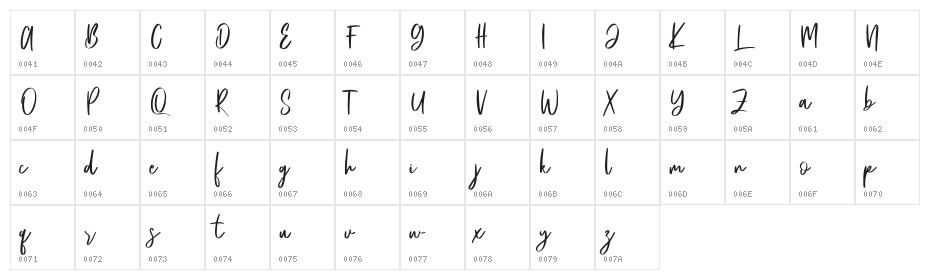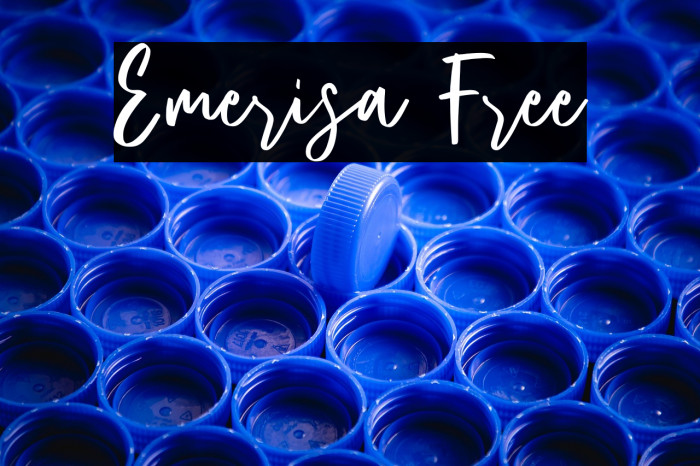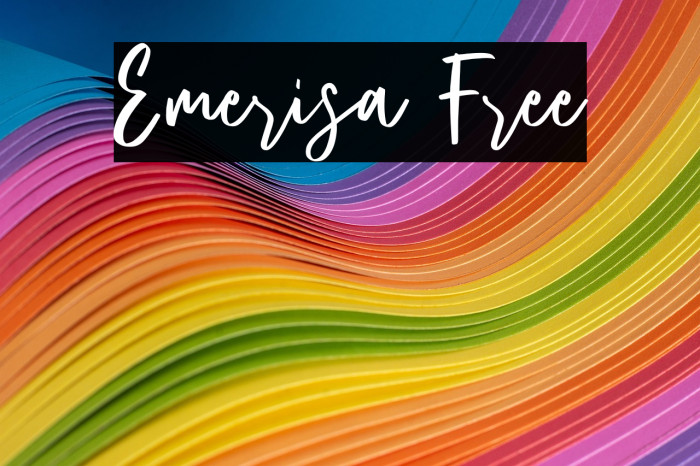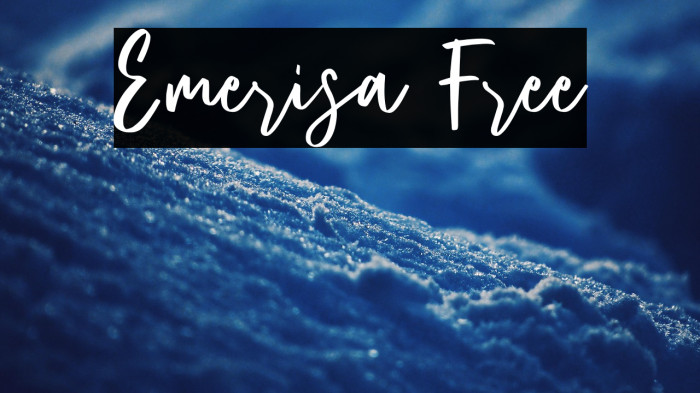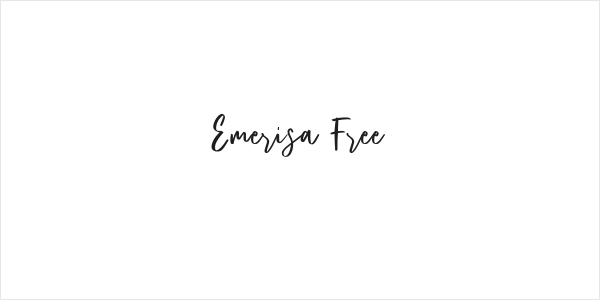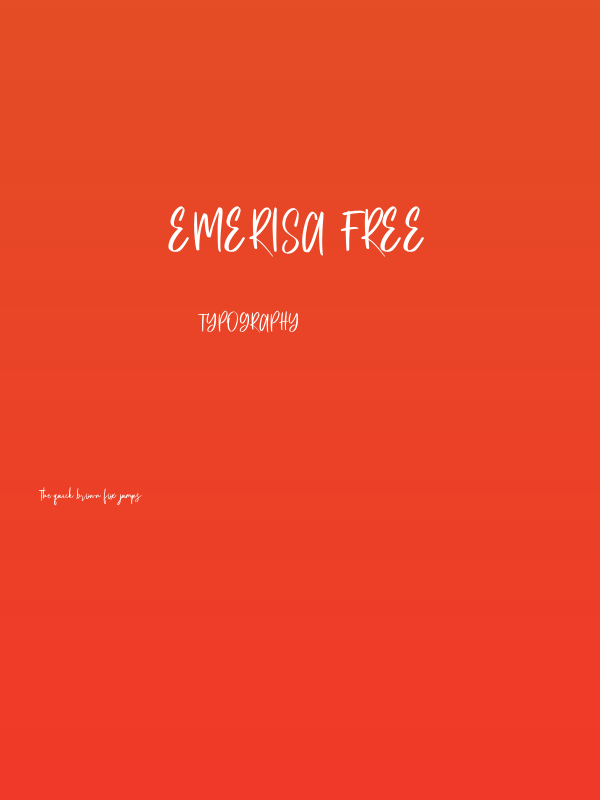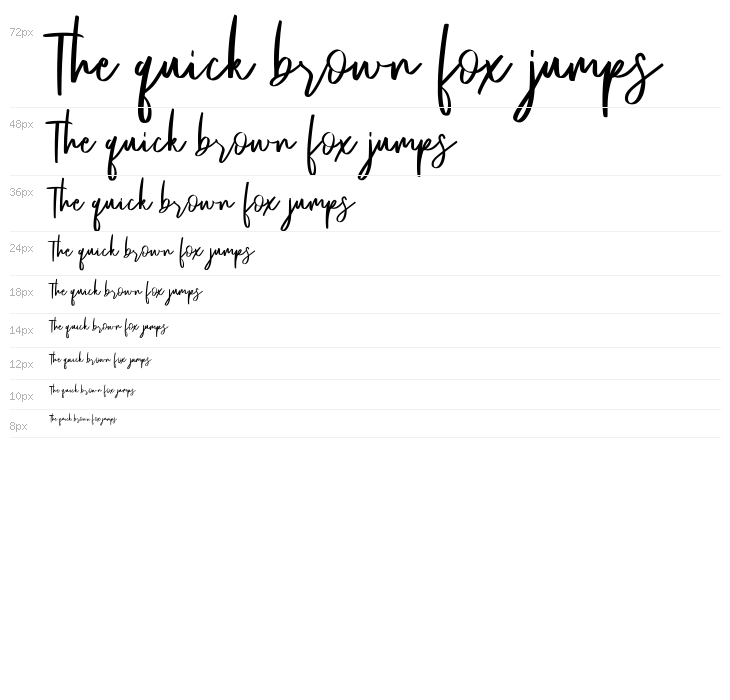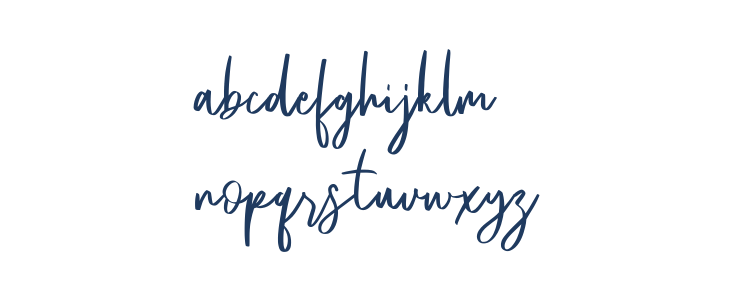
Emerisa Free Font
Emerisa Free Description
This font features a lively and expressive script style with a handwritten feel. The uppercase letters are bold and dynamic, with a playful yet elegant flair. The lowercase letters maintain a consistent flow, enhancing the font's overall fluidity. The characters are slightly slanted, adding to the casual and approachable aesthetic. The numerals and special characters are designed to match the energetic style of the letters, making the font versatile for various creative applications. The strokes vary in thickness, providing a medium contrast that adds depth and interest to the text.
| Proposed Projects | Ideal for wedding invitations, greeting cards, branding projects, and social media graphics. |